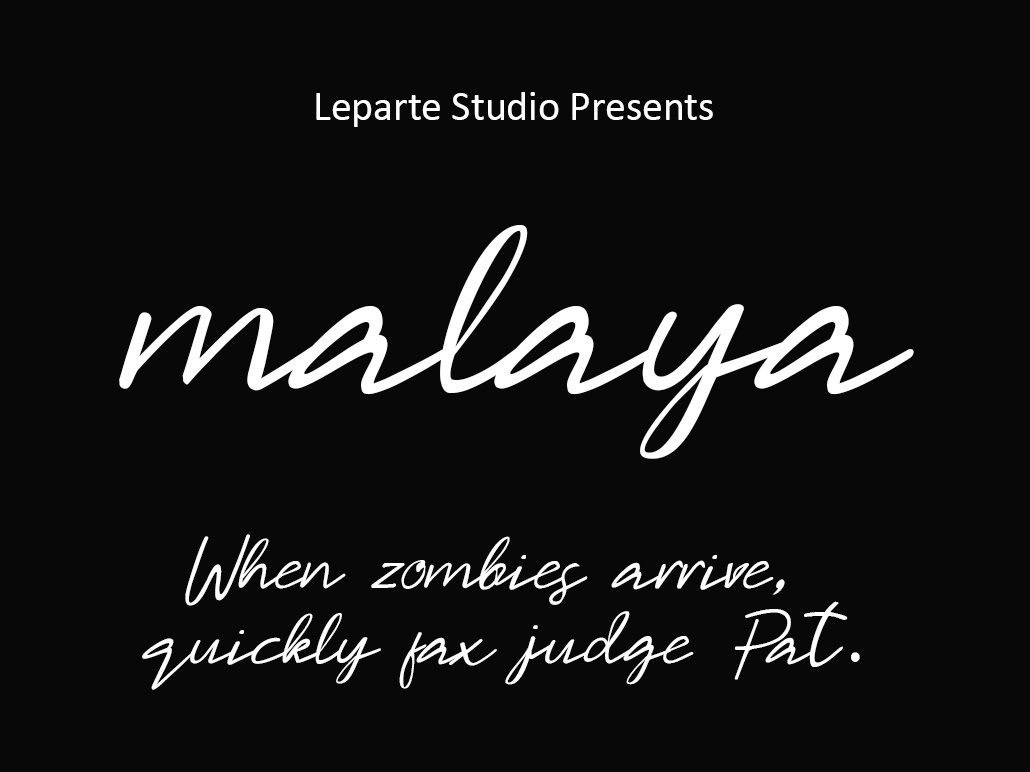
Malaya Font Script
Malaya Script is a signature style font where you will get hand scratches like the original. This font can be applied for various purposes such as product brands, logos, store boards, invitation cards, embossed letters, web titles, magazine headers, book titles and various product and company promotion needs.